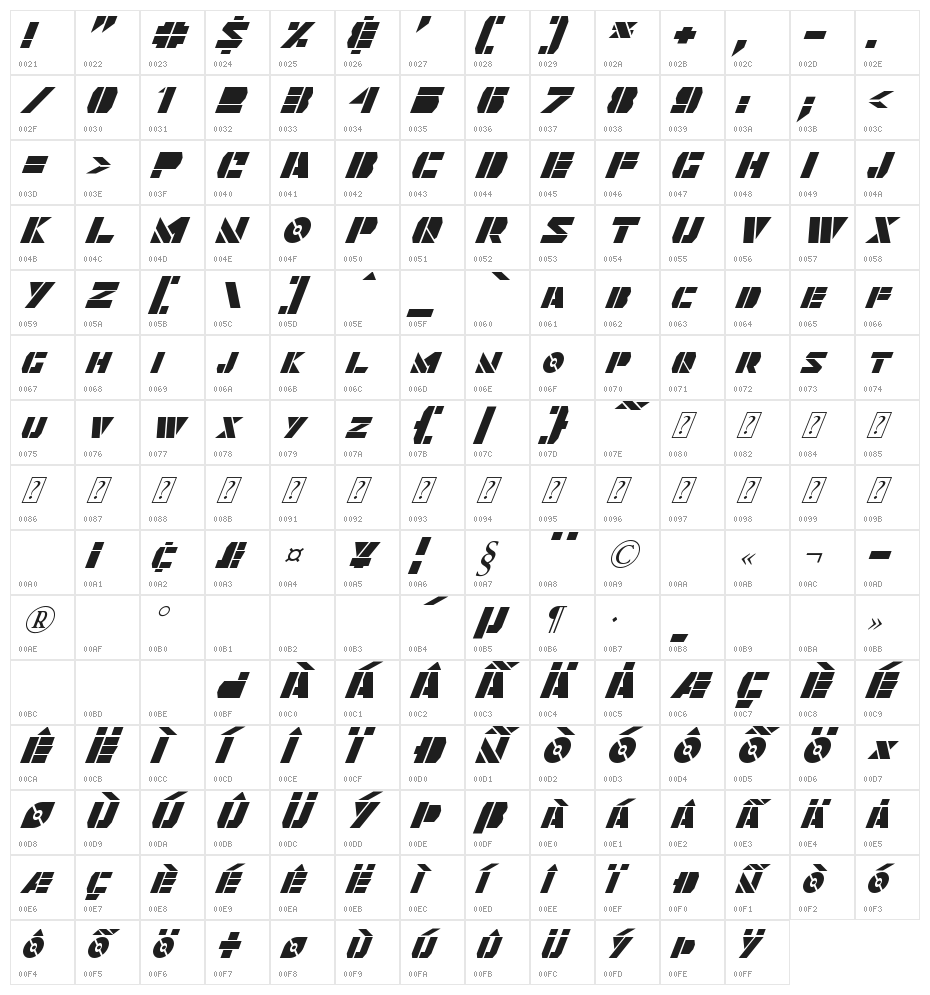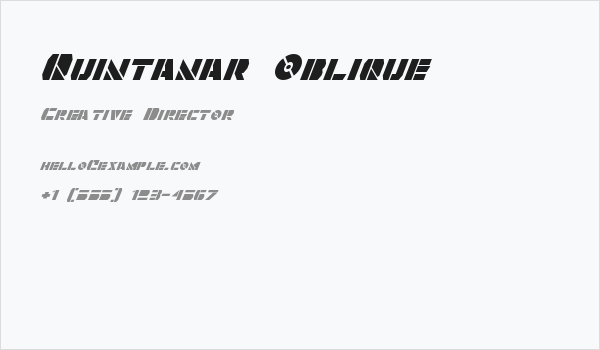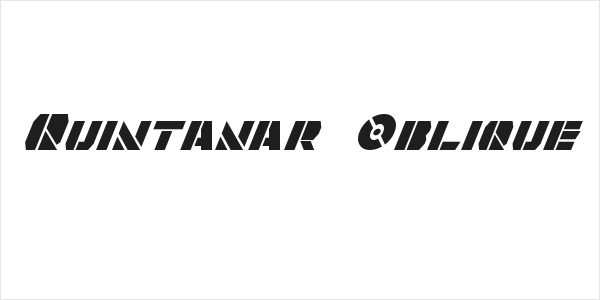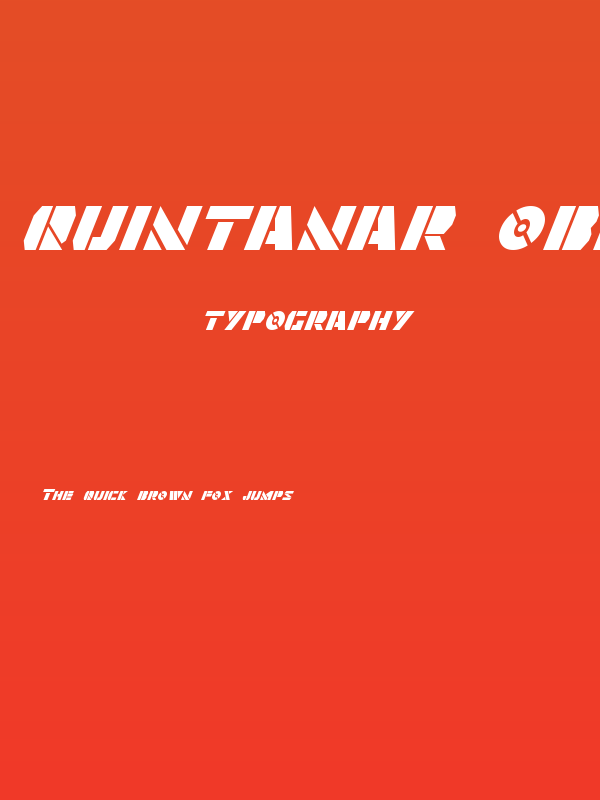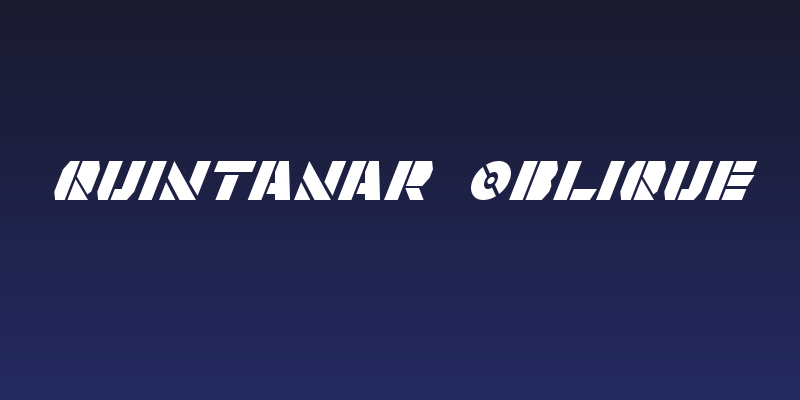
Quintanar Oblique Font
Quintanar Oblique Description
This font features a bold, geometric design with sharp, angular lines and a distinct oblique slant. The characters are constructed with a series of straight edges and diagonal cuts, creating a dynamic and futuristic appearance. The uppercase letters are particularly striking, with each character maintaining a consistent width and height, giving the font a uniform and cohesive look. The numbers and special characters follow the same stylistic approach, ensuring a seamless integration across all glyphs. The overall style is modern and edgy, making it suitable for projects that require a strong visual impact.
Proposed ProjectsIdeal for branding, posters, video game graphics, and any project needing a futuristic and bold aesthetic.